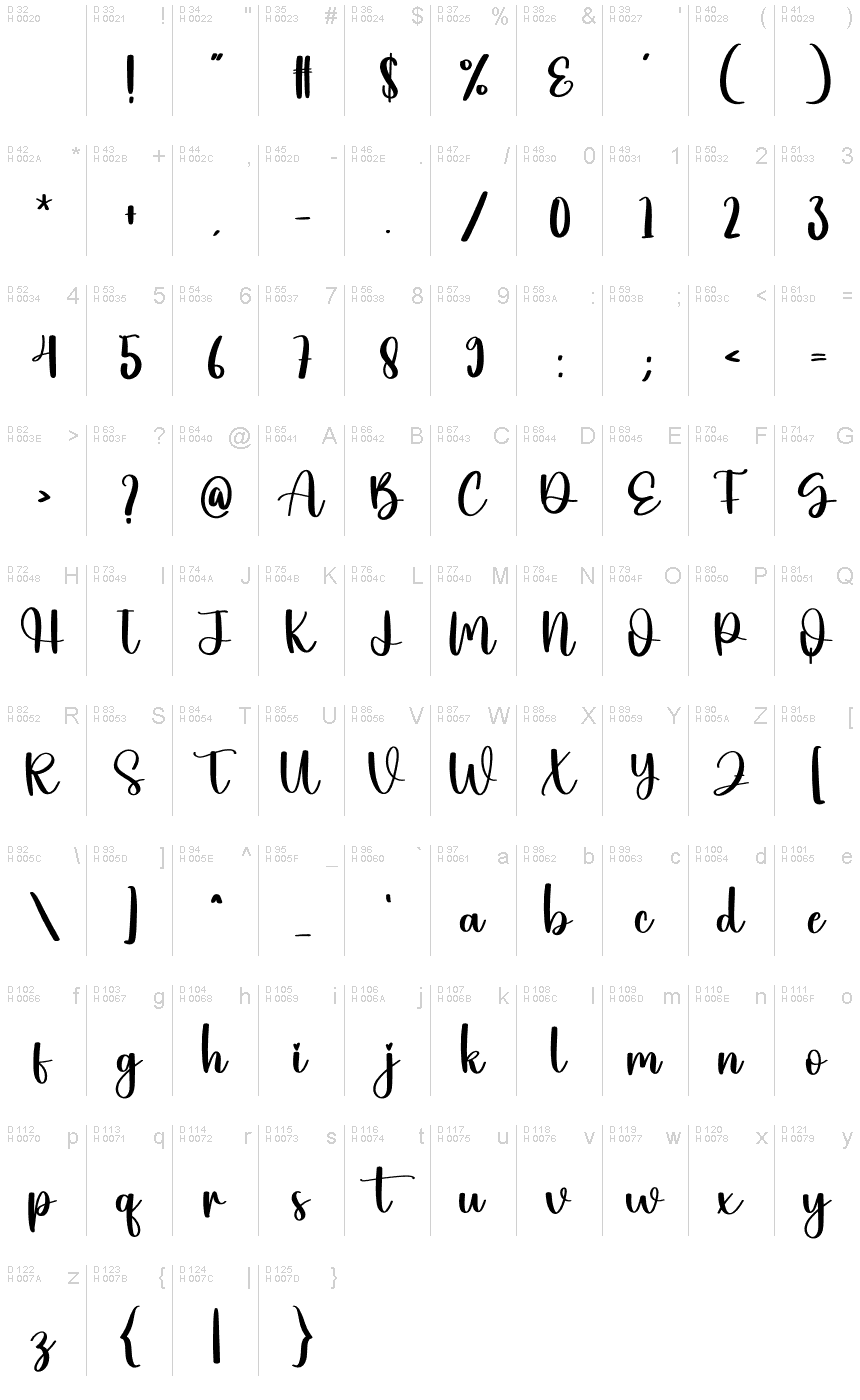
Jolly
Jolly, a delightful creation by Scratchones, is a lovely handwritten font that exudes warmth and charm. With its graceful curves and playful strokes, this font brings a touch of whimsy to any project. Its versatility makes it suitable for various design endeavors.
Use Jolly for greeting cards, wedding invitations, or children's book covers to add an enchanting feel. Its semi-bold typeface gives it a distinctive presence on posters and packaging designs. Jolly's medium width makes it perfect for crafting catchy headlines or adding a personal touch to blog headers.
Let your imagination run wild with Jolly!
The latest style letters are perfect for wall displays, wedding invitations, social media post logos, advertisements, product packaging, product designs, labels, photography, watermarks, invitations, stationery, and any project that requires taste handwriting.